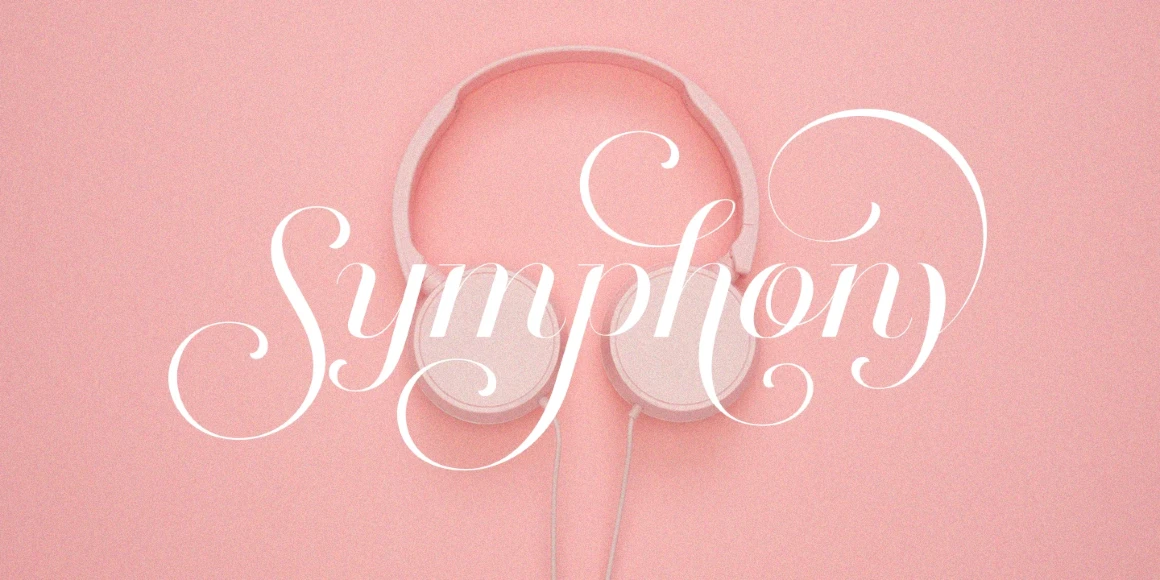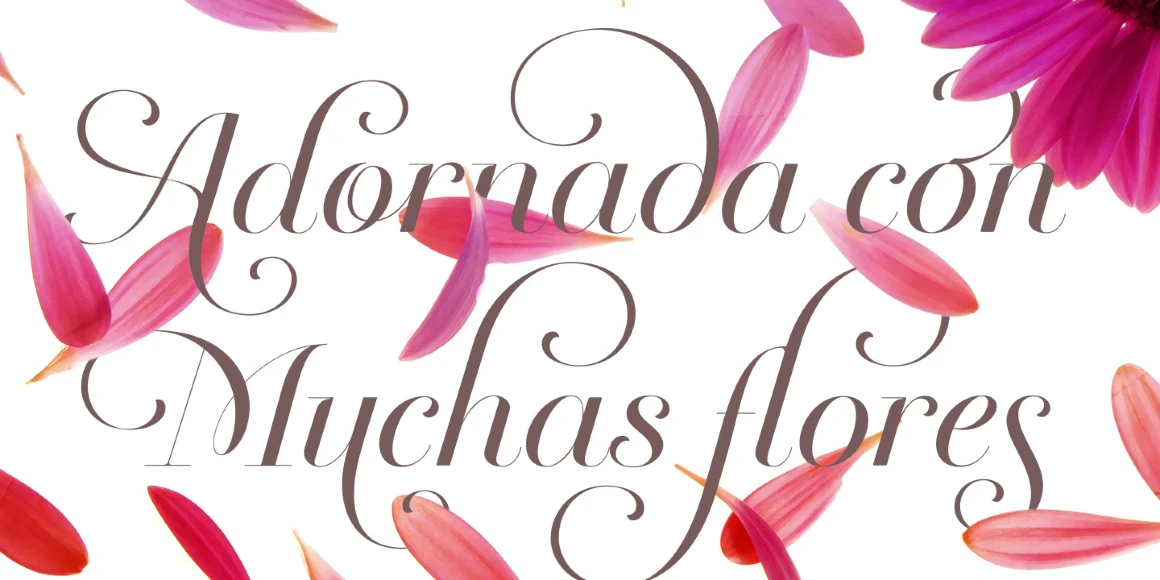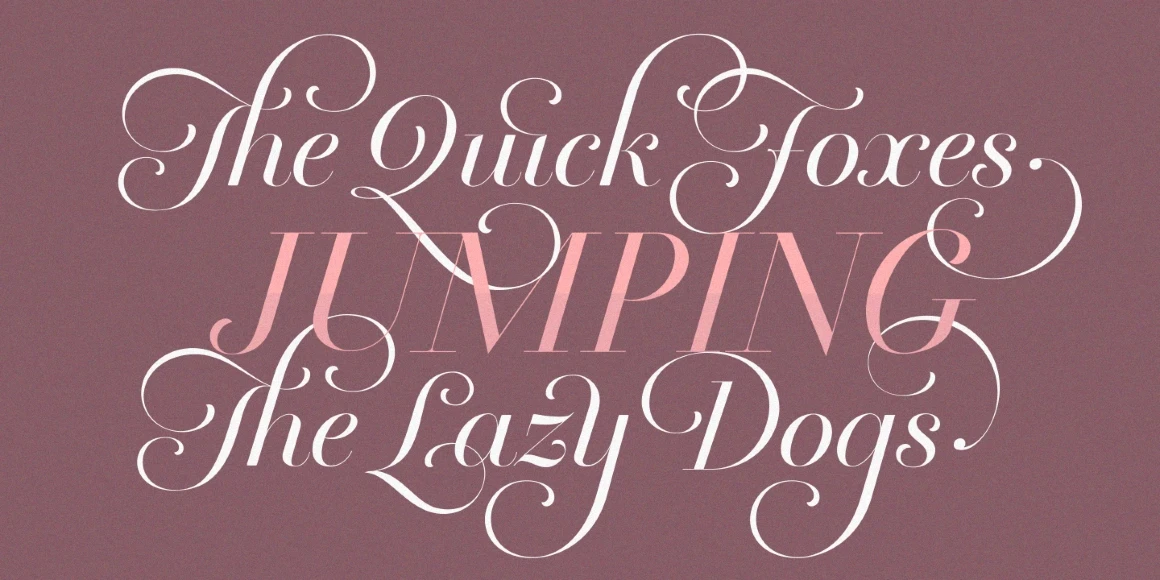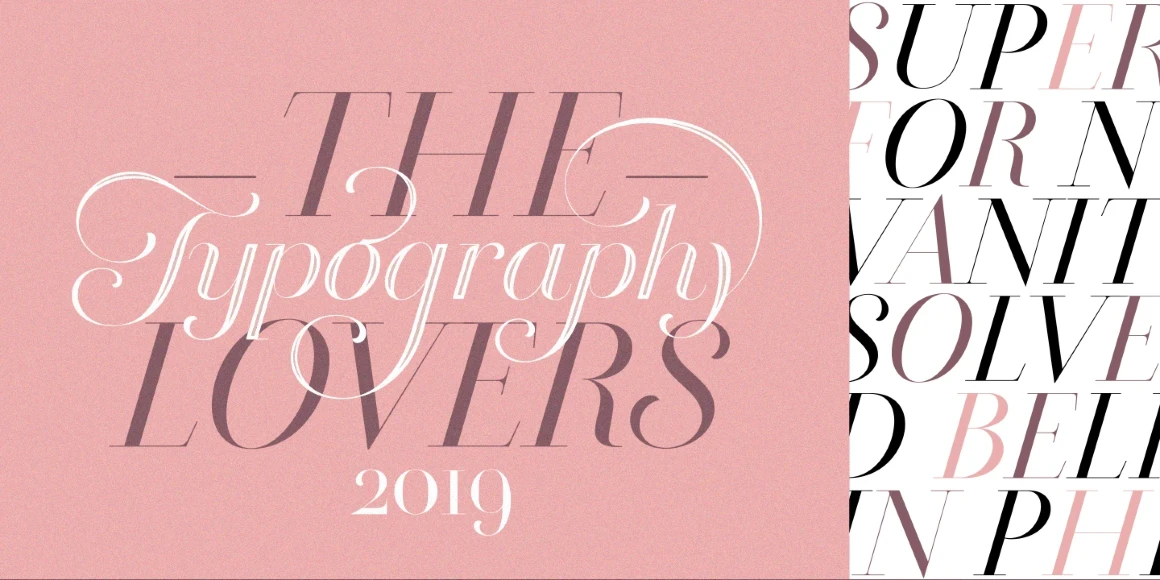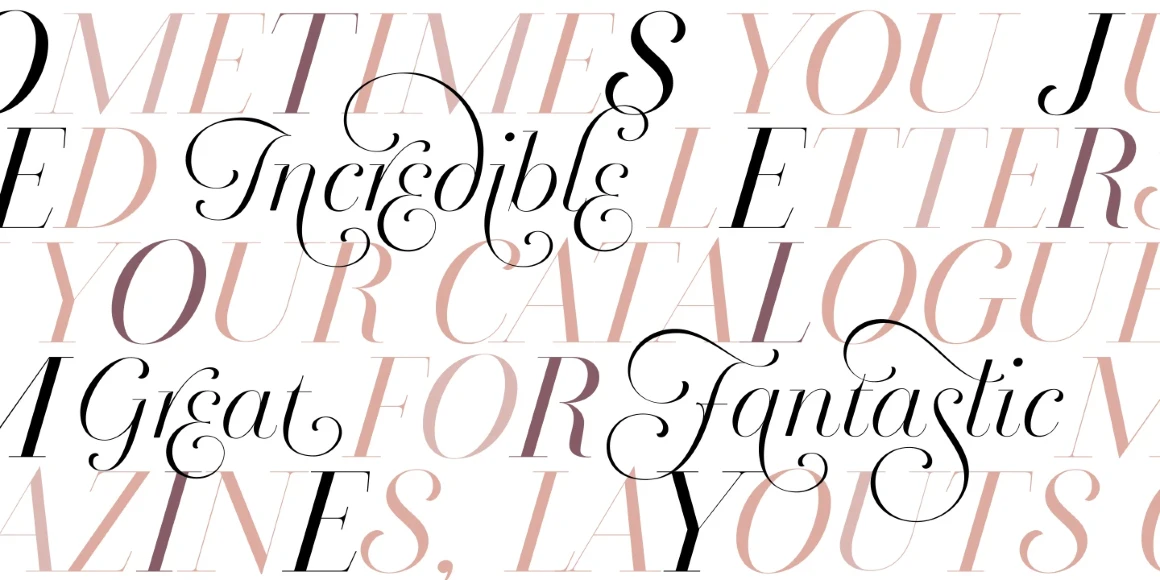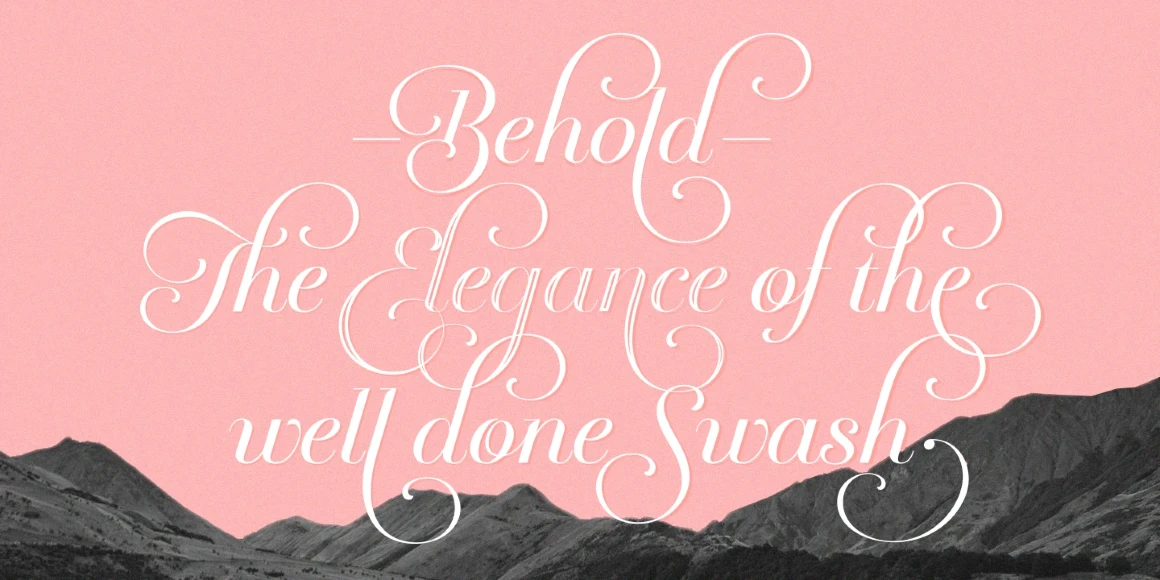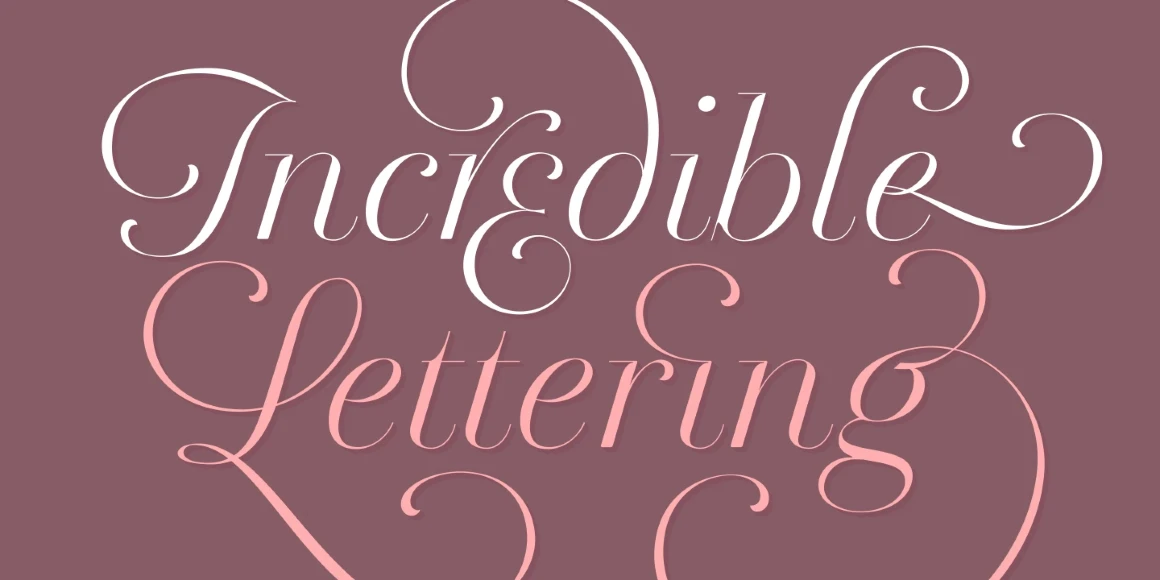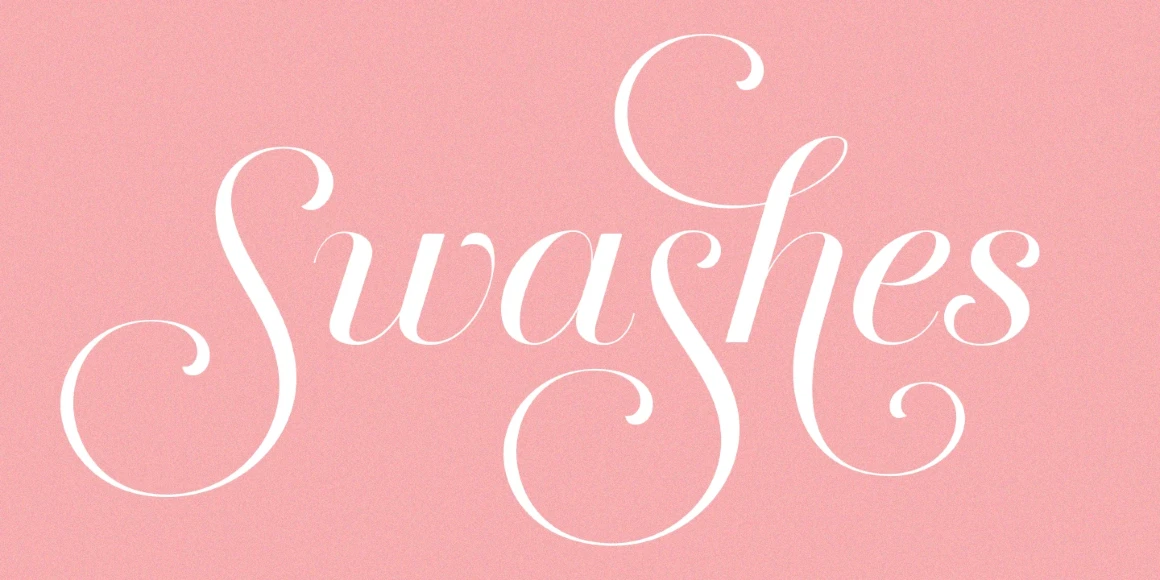
Breathe
By Maximiliano Sproviero
Breathe Regular
Breathe is a swashy serif typeface answering the question, “what if the Didone style had been turned into a script?” Delighted by the typographic works of Didot and his followers at the beginning of 1800, Breathe answers this question with resounding beauty, refinement, and polish. The opportunities for extravagant visual design are limitless. Above all else, experiment with its swashes and flourishes, and watch as your words move as if they are alive.